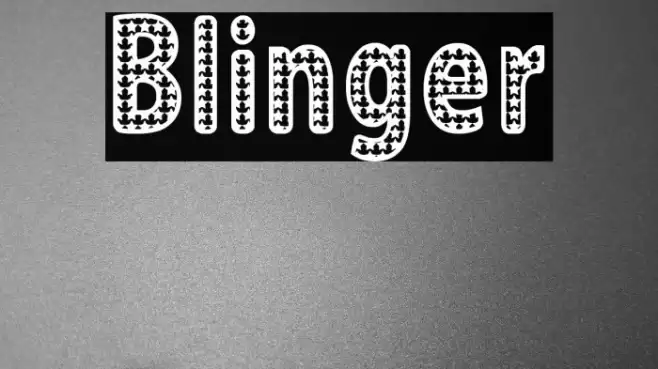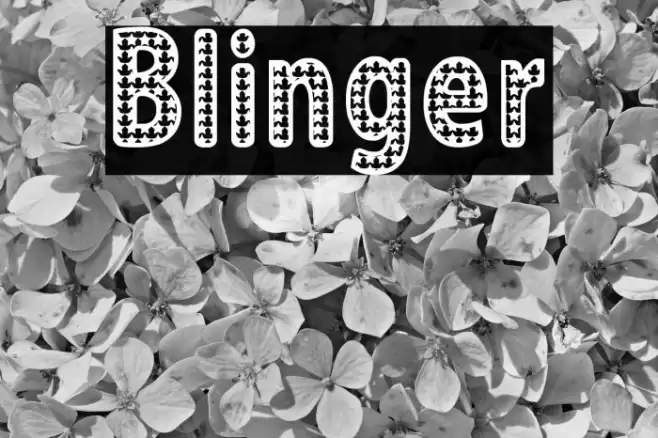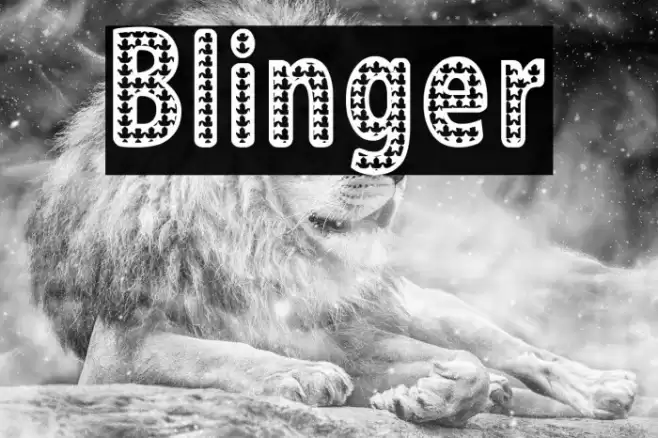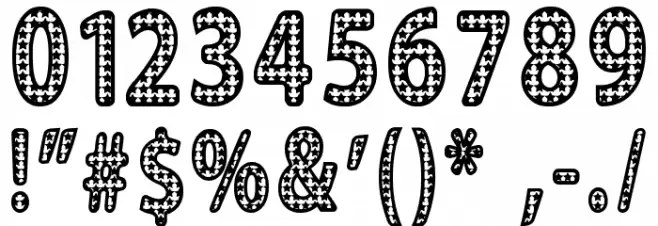
Blinger Font
Blinger Description
This font features a bold, decorative style with a unique pattern of stars embedded within each character. The letters are outlined with a thick black border, enhancing their visibility and adding a playful, eye-catching effect. The uppercase and lowercase letters maintain a consistent design, ensuring uniformity across different text applications. Numbers and special characters follow the same aesthetic, making this font versatile for various uses. The overall appearance is lively and dynamic, perfect for projects that require a touch of whimsy and flair.
A bold, decorative font with star-patterned characters and thick outlines from Decorative fonts.
- Proposed Projects: Ideal for party invitations, children's book covers, festive banners, and playful branding materials.